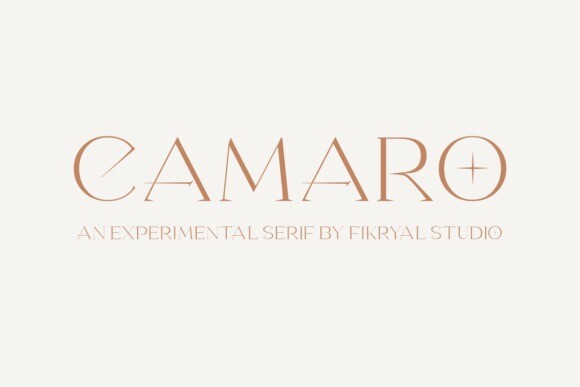
Camaro Serif Font
Designer: Fikryal Studio
Camaro Serif Font – An Experimental Serif is an online innovation in the world of typography that brings the courage of experimentation and uniqueness. Carefully shaped to create a strong and challenging impression, this font features a highly experimental all-caps serif style. Each letter is designed with meticulous detail, creating an alluring and inviting atmosphere.